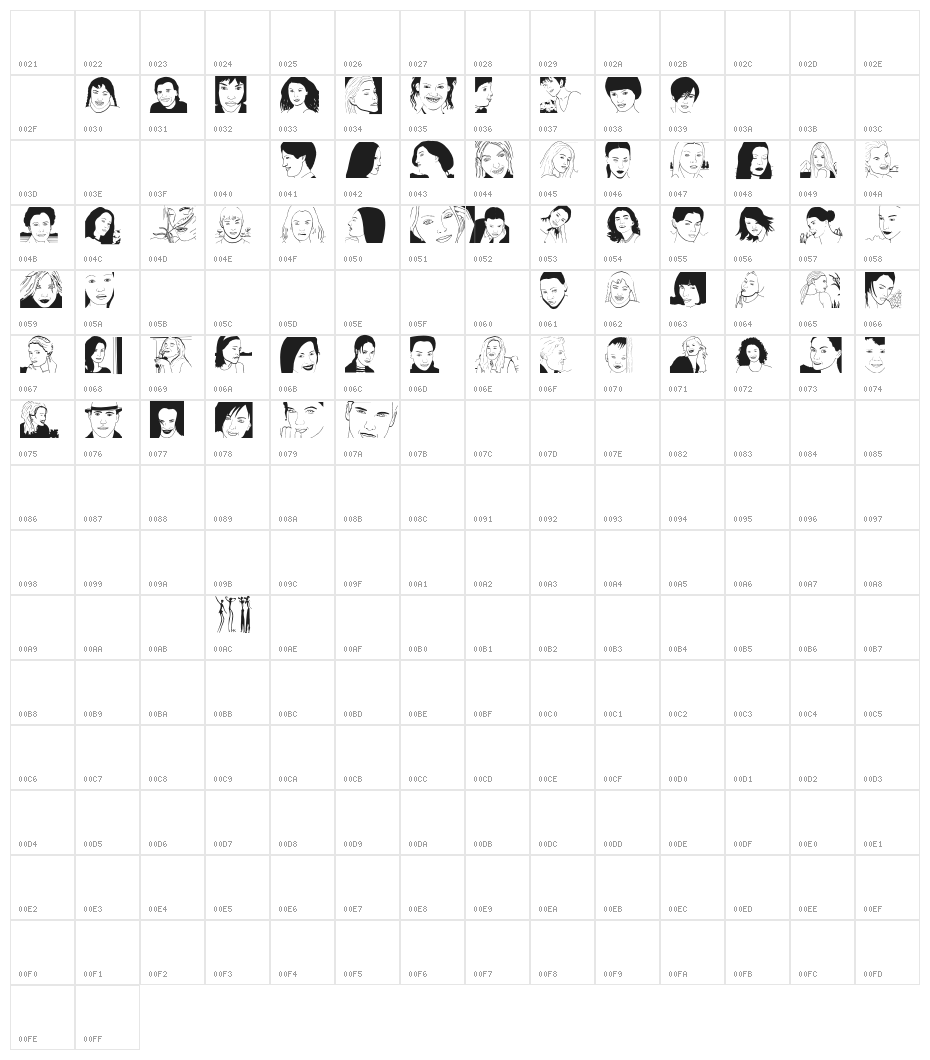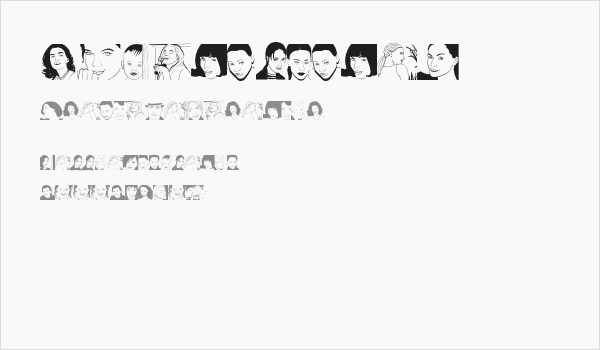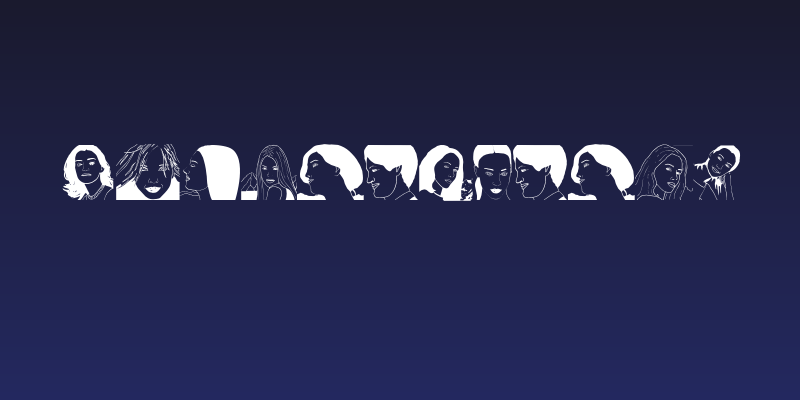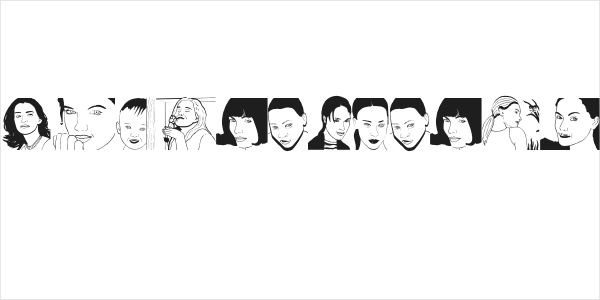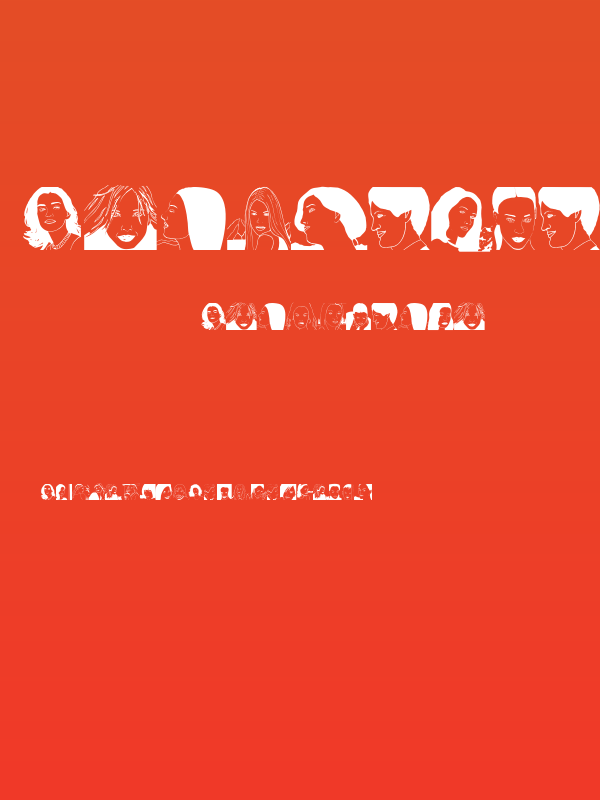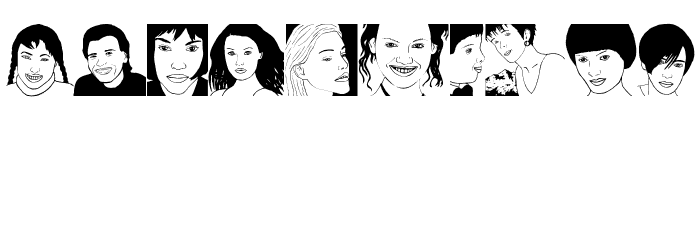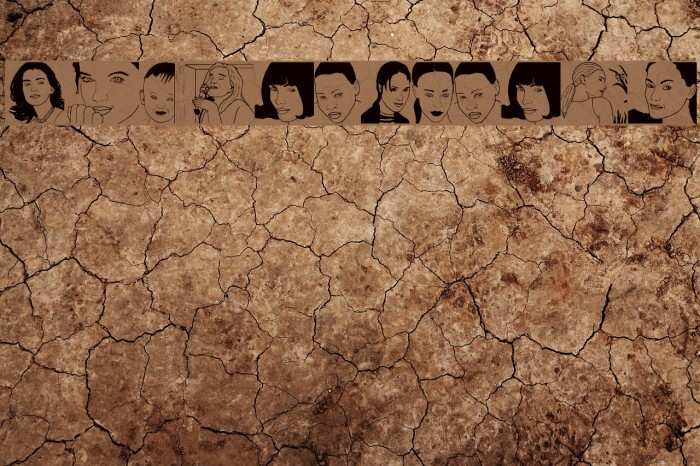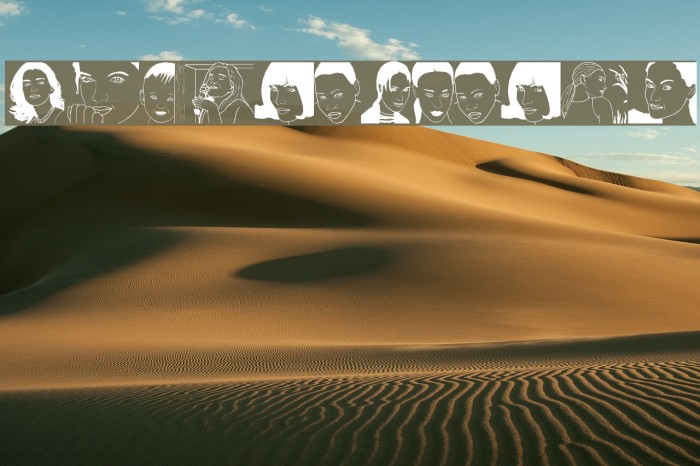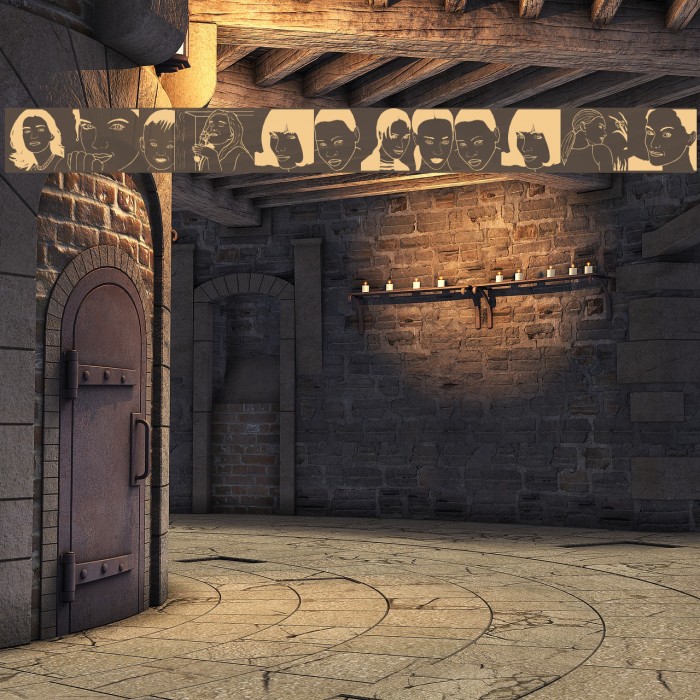
TypicalFaces Font
TypicalFaces Description
A decorative display typeface composed of stylized, black-and-white illustrated faces within square or rectangular frames, each representing a different character for letters, numbers, and symbols. The illustrations are line art with varying facial expressions and hairstyles, offering a playful and artistic appearance.
| Overall Style | Decorative, Artistic, Playful |
| Use Case | Headlines, Logos, Posters, Artistic projects |
| Proposed Projects | Posters, album covers, event invitations, editorial illustrations, creative branding, youth-oriented campaigns. |